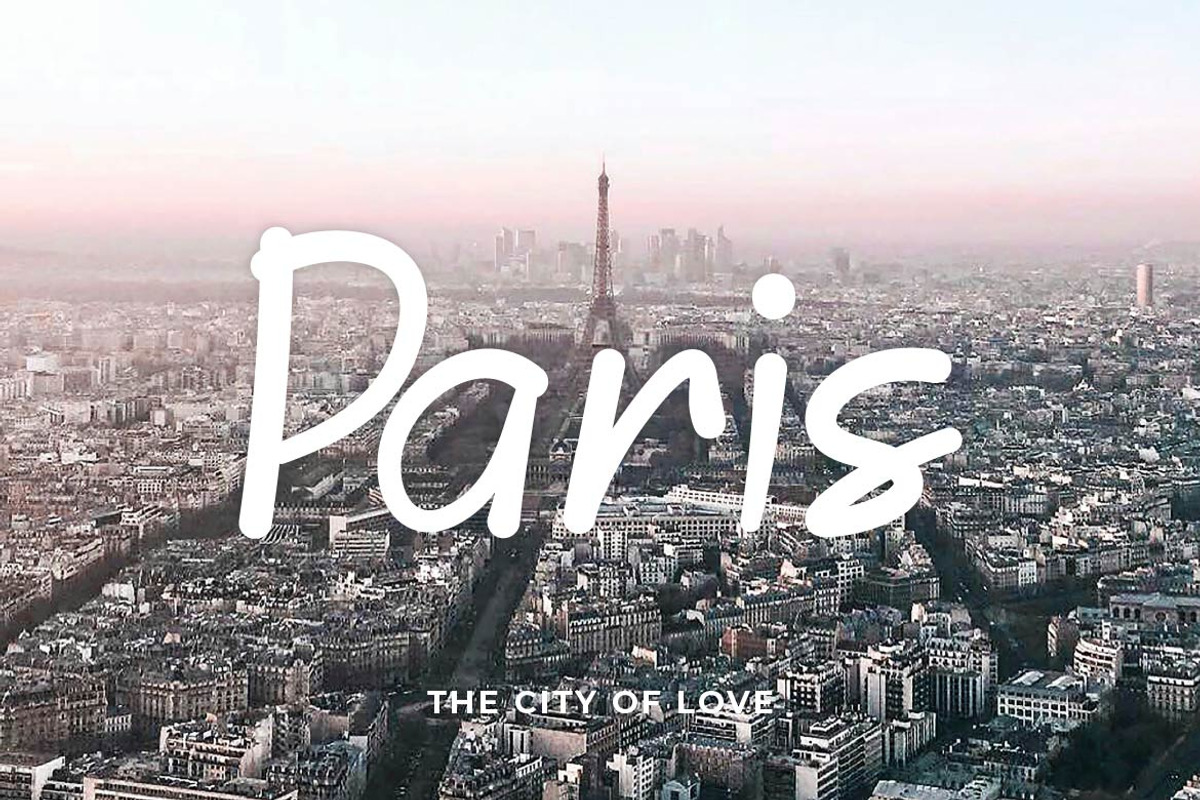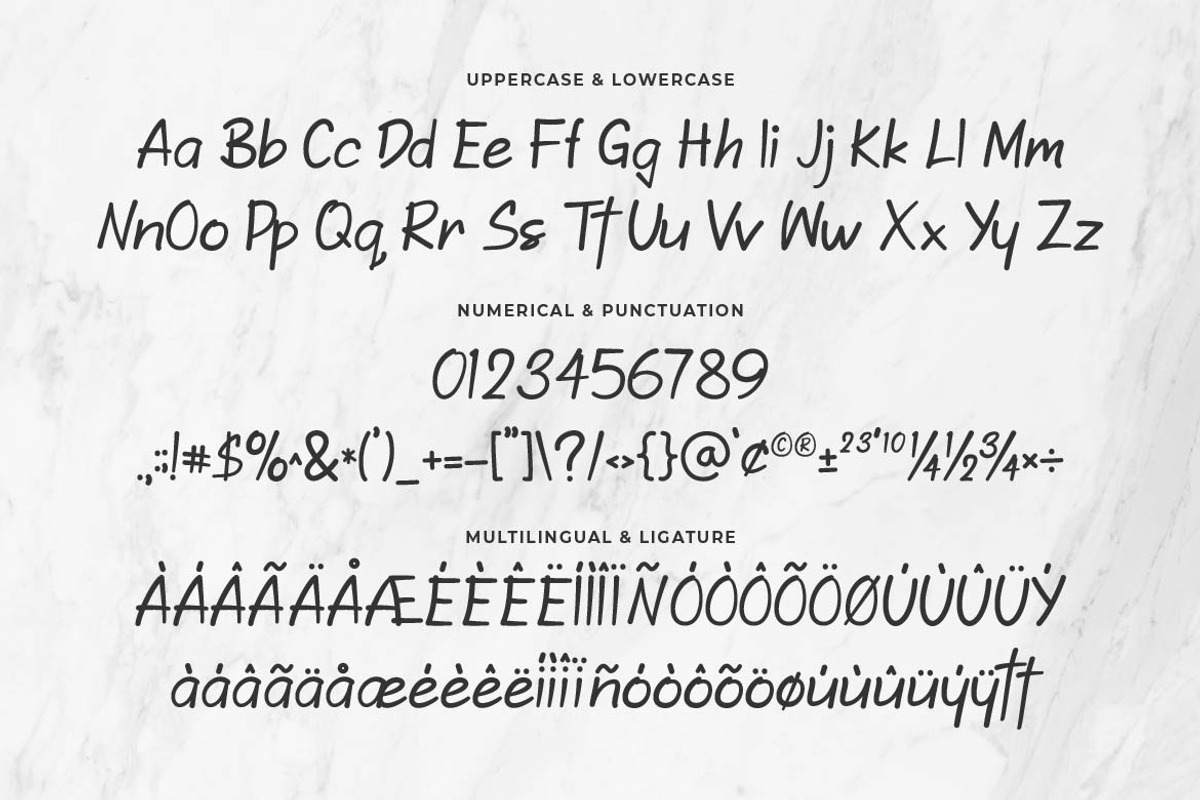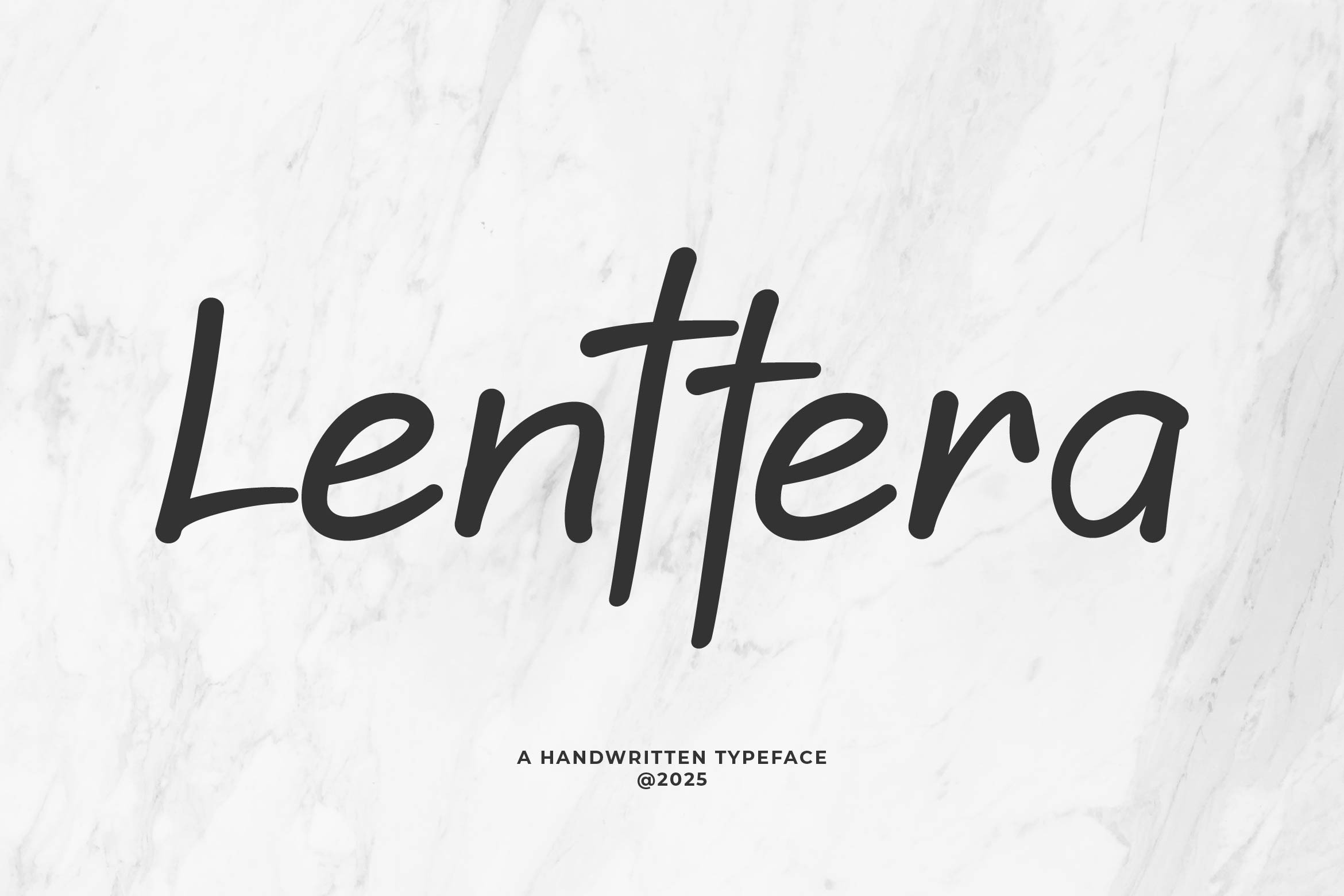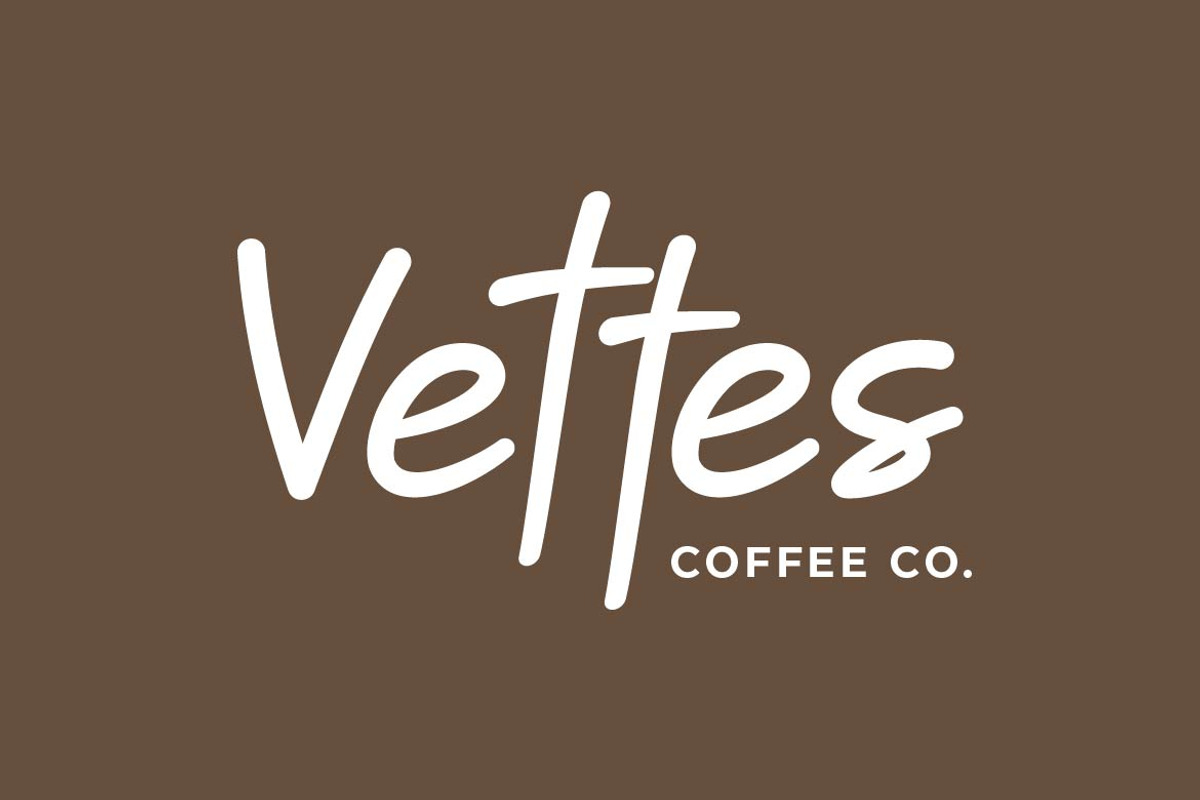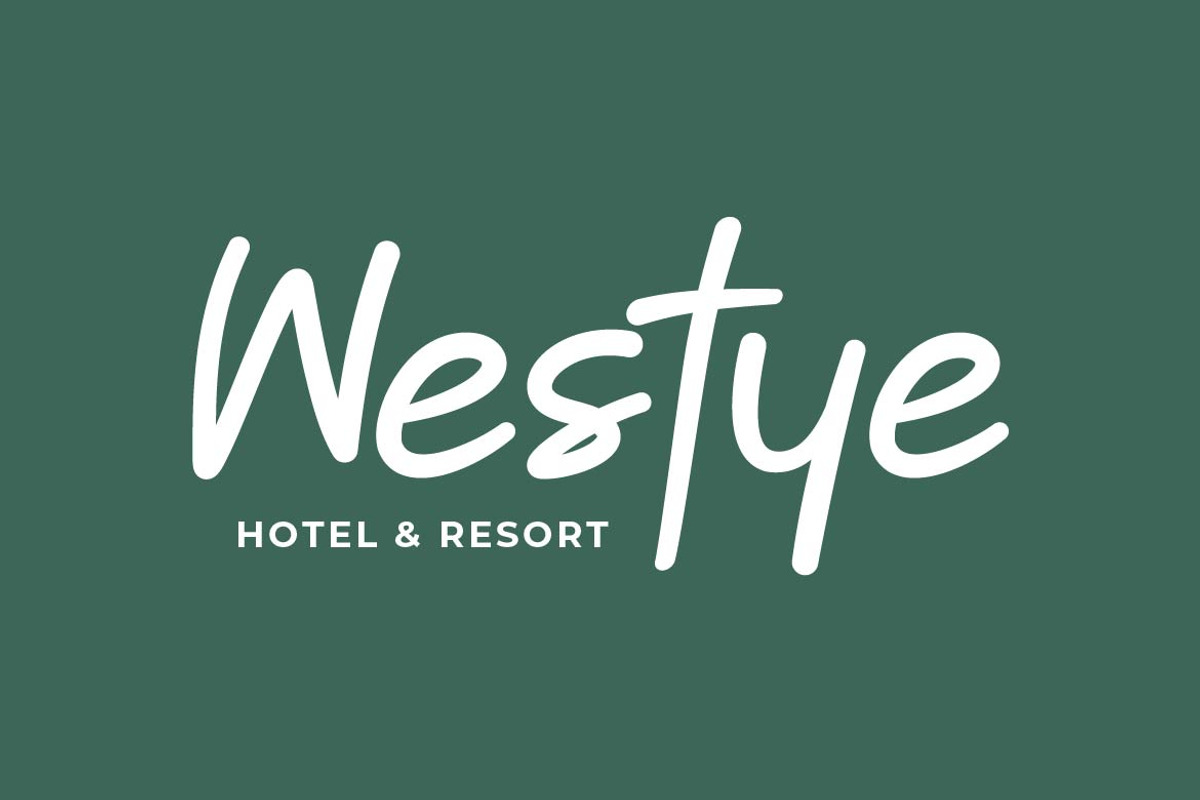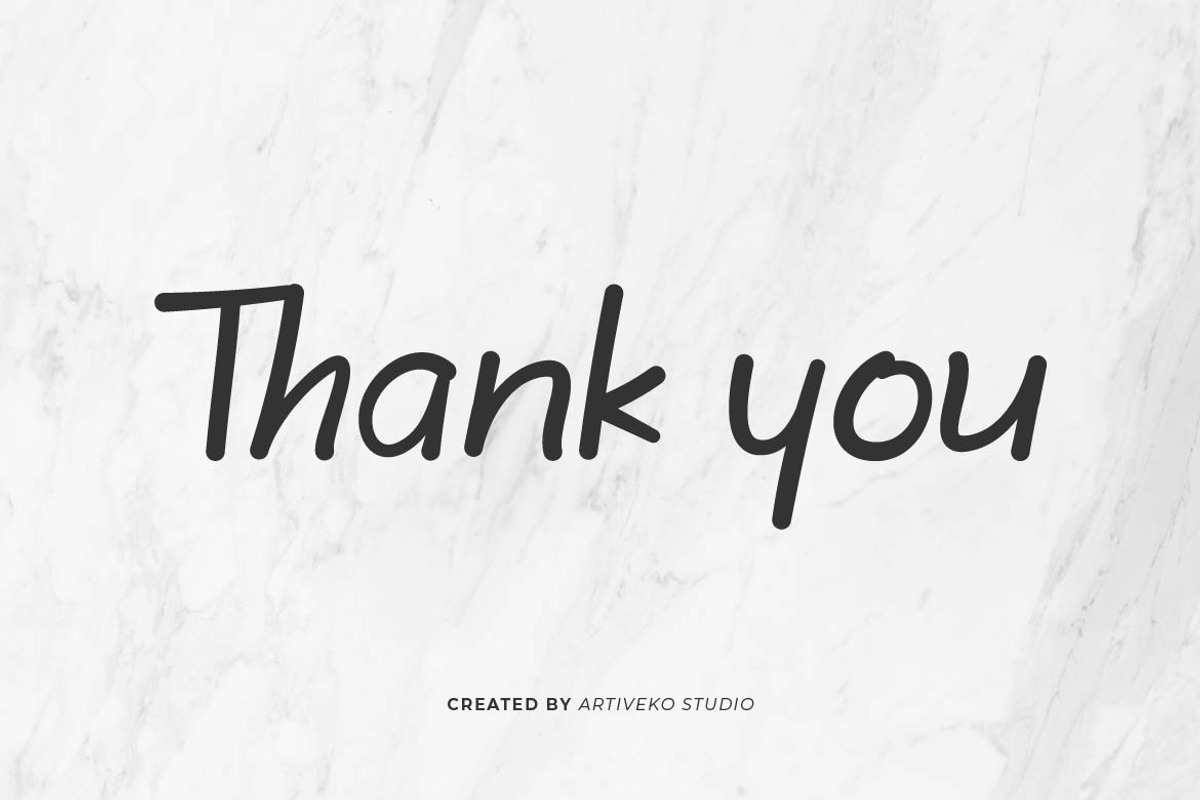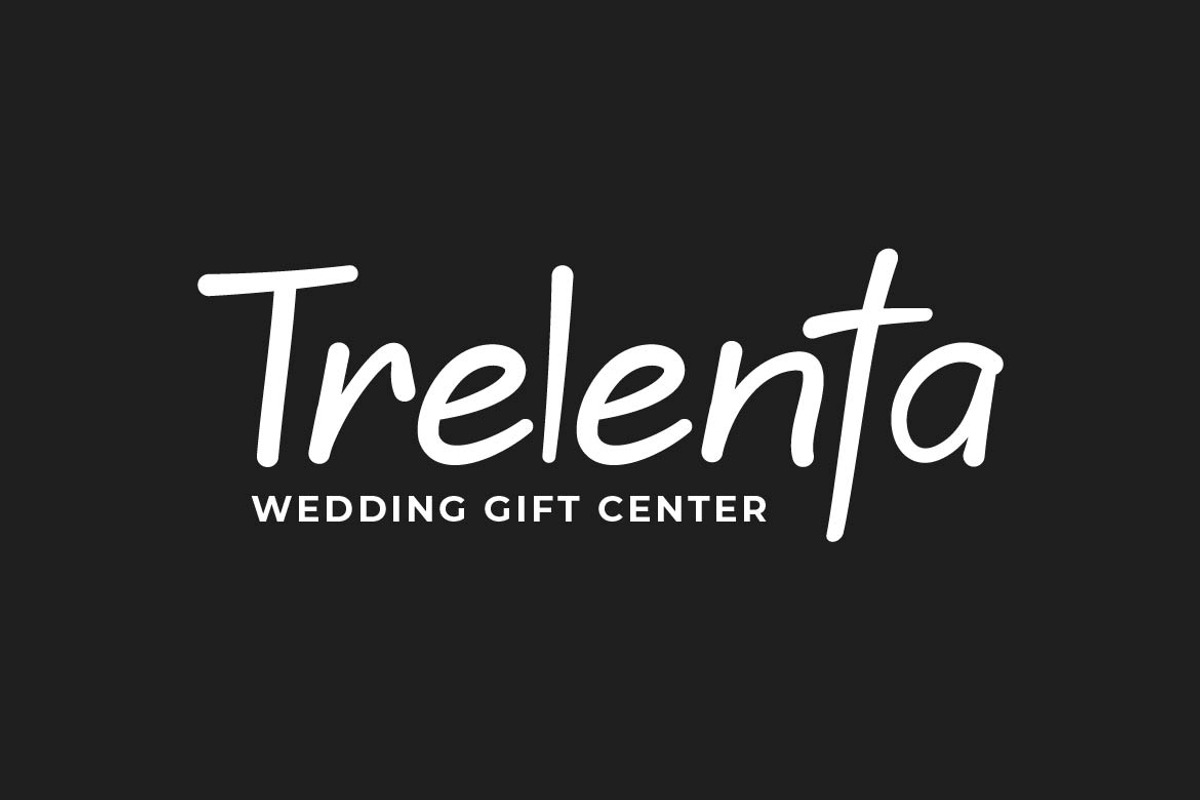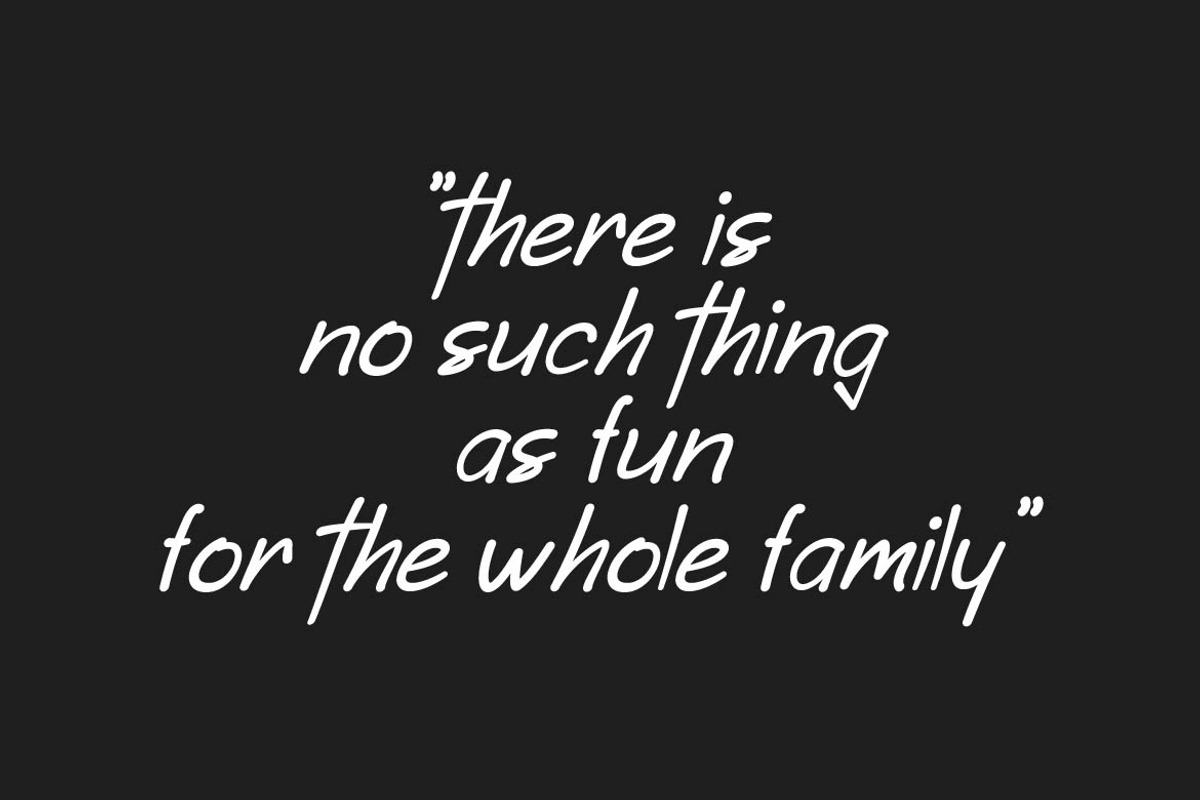
Lenttera Handwritten Font
Lenttera is a beautifully handcrafted handwritten font that captures the charm of genuine handwriting with a smooth and natural flow. Designed to bring warmth and authenticity to your creative projects, Lenttera blends casual elegance with a personal touch, making it perfect for logos, invitations, social media quotes, branding, packaging, and greeting cards.